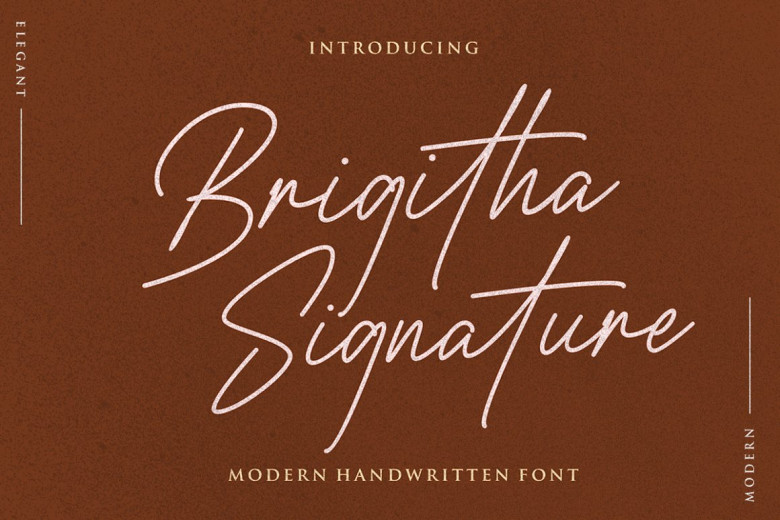
Brigitha Signature Font
Brigitha by Typeline Studio is a modern handwritten textured script signature font designed to add a luxurious aesthetic to your designs and give them timeless, elegant style.
Signature font has been carefully created to capture the feel and essence of handwriting signatures with its smooth strokes and beautiful curves. A great option for versatile use!
Brigitha Signature Script Font